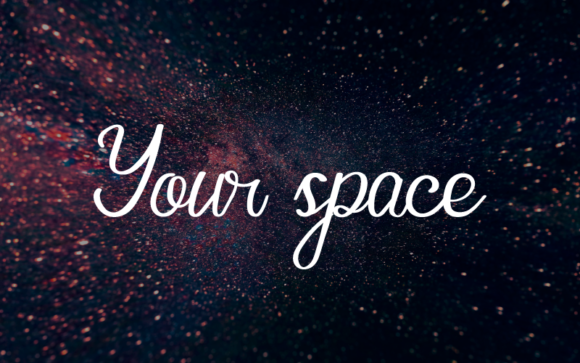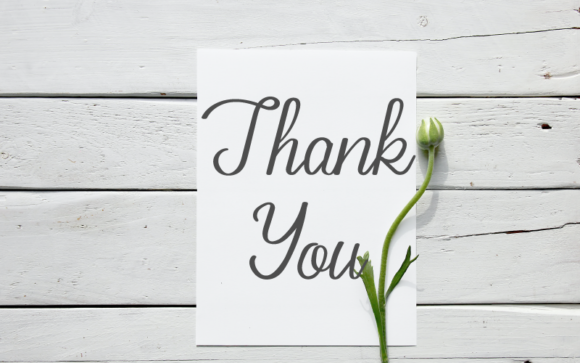
Introduction to Funykora Font
Funykora is a sweet and flowing handwritten font.
Its relaxed and round lettered style makes it fitting to a wide range of designs Let your imagination be the limit.